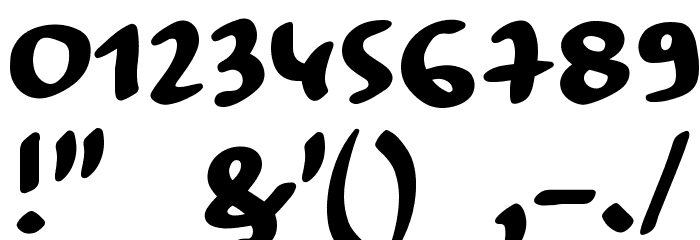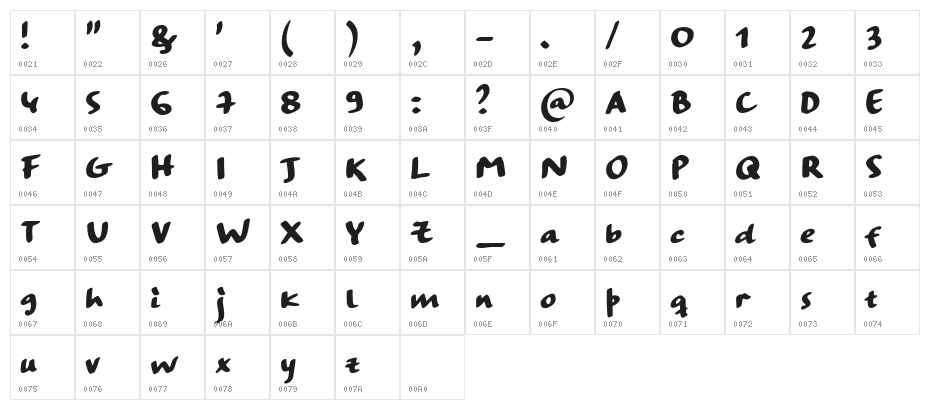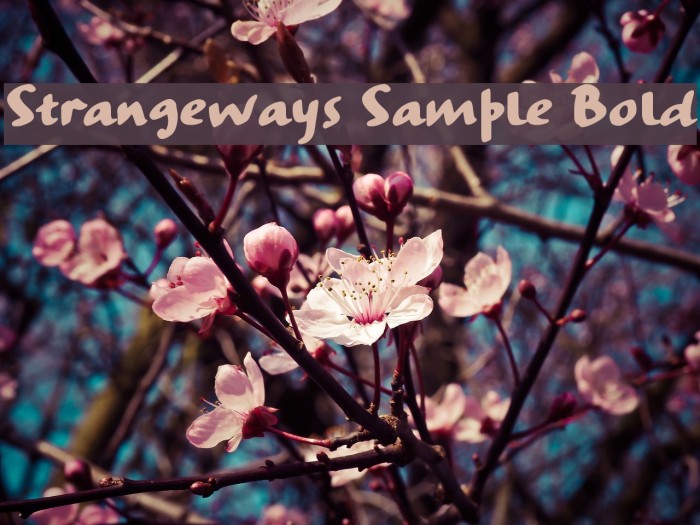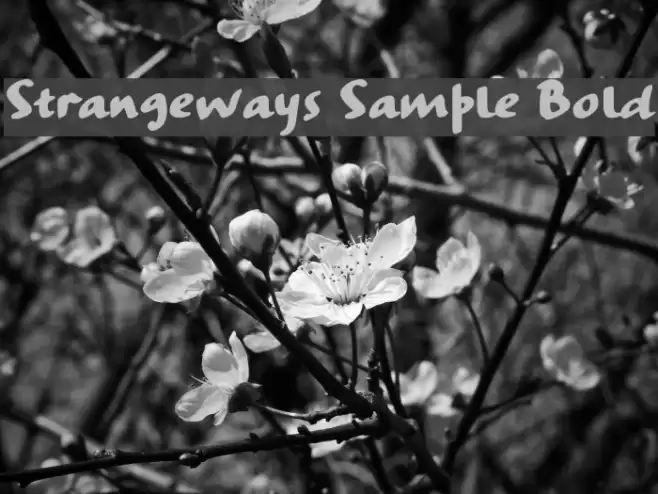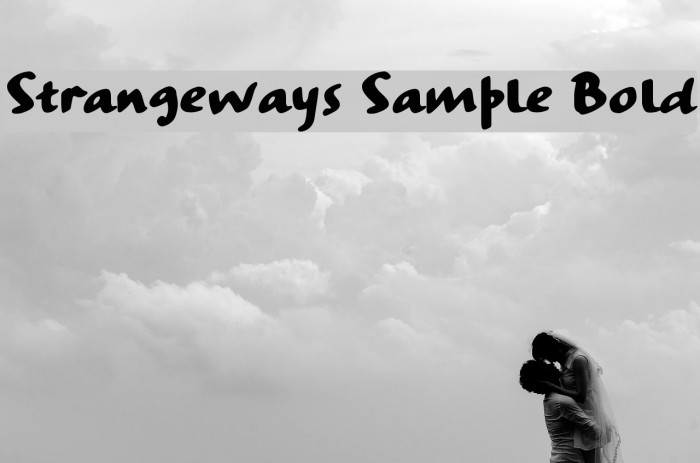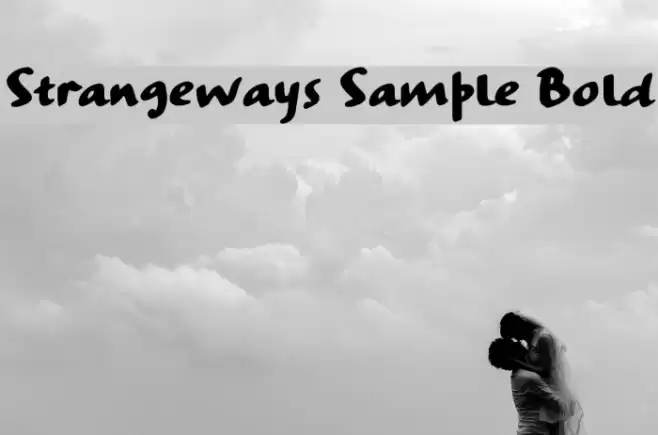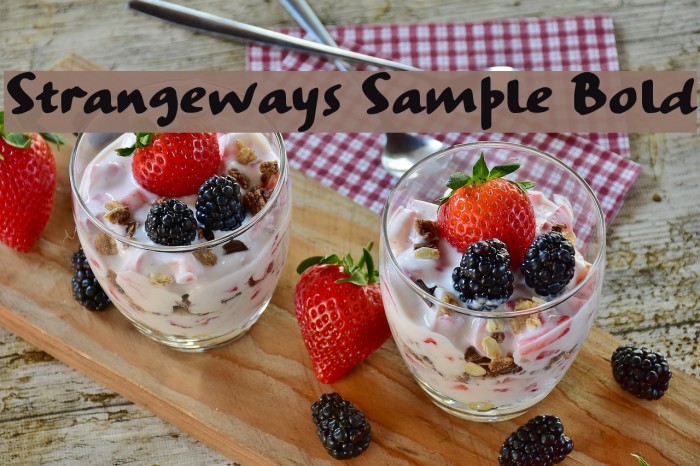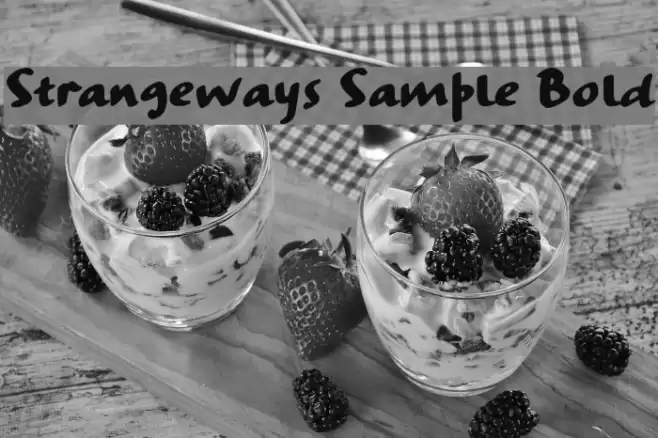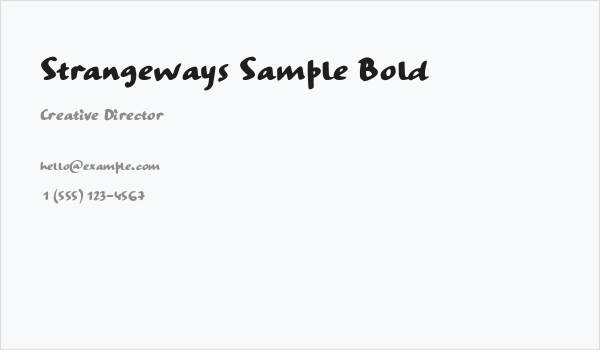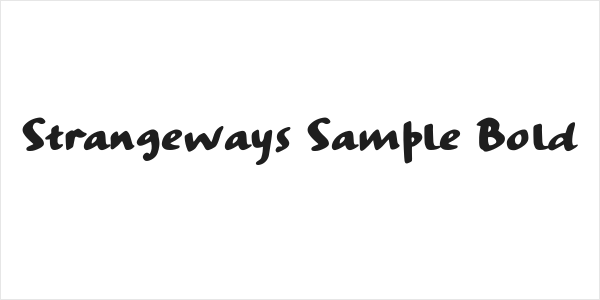
Strangeways Sample Bold Font
Strangeways Sample Bold Description
This font features a bold and playful style with a handwritten appearance. The characters are rounded and slightly irregular, giving it a casual and friendly look. The uppercase and lowercase letters are consistent in their boldness, with a smooth flow that suggests a sense of movement. The numbers and special characters maintain the same playful aesthetic, making it suitable for creative and informal designs. The overall impression is one of warmth and approachability, ideal for projects that require a personal touch.
| Overall Style | Playful, Casual |
| Use Case | Logos, Headlines, Informal Invitations |
| Proposed Projects | Ideal for greeting cards, children's books, playful branding, and social media graphics. |